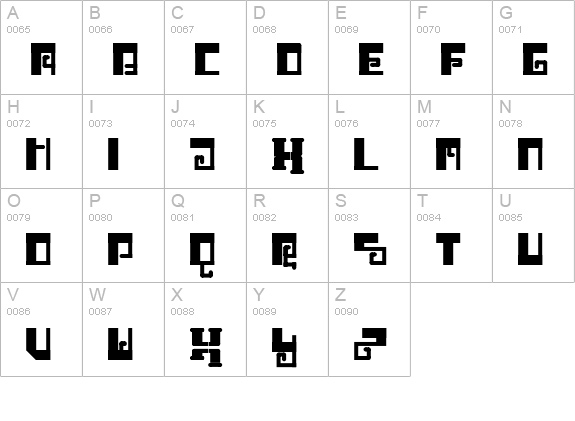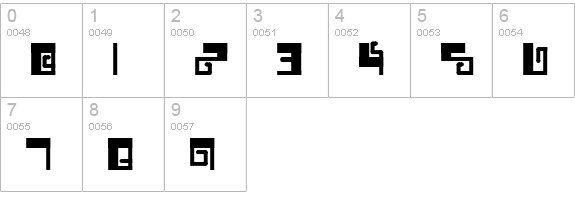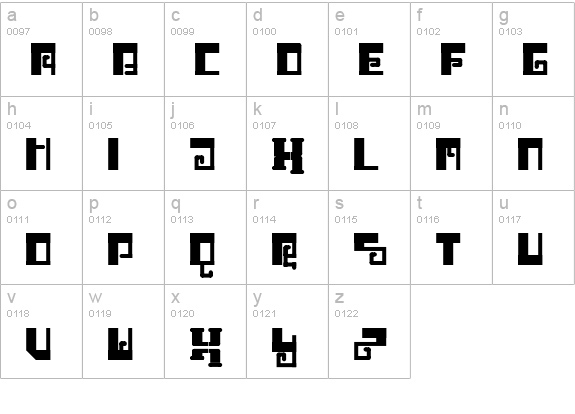
Introducing Brrr Font, a delightful and whimsical typeface that exudes charm and personality. With its playful curves and stylish flourishes, Brrr Font is perfect for adding a touch of fun to your designs. Whether you're working on a greeting card, poster, or logo, this font will surely stand out and leave a lasting impression. The best part? Brrr Font is absolutely free to download at FontsMarket.com! This means you can easily incorporate this unique typeface into your projects without breaking the bank. Don't miss out on the opportunity to enhance your creative endeavors with the captivating Brrr Font. Download it today and let your imagination run wild!